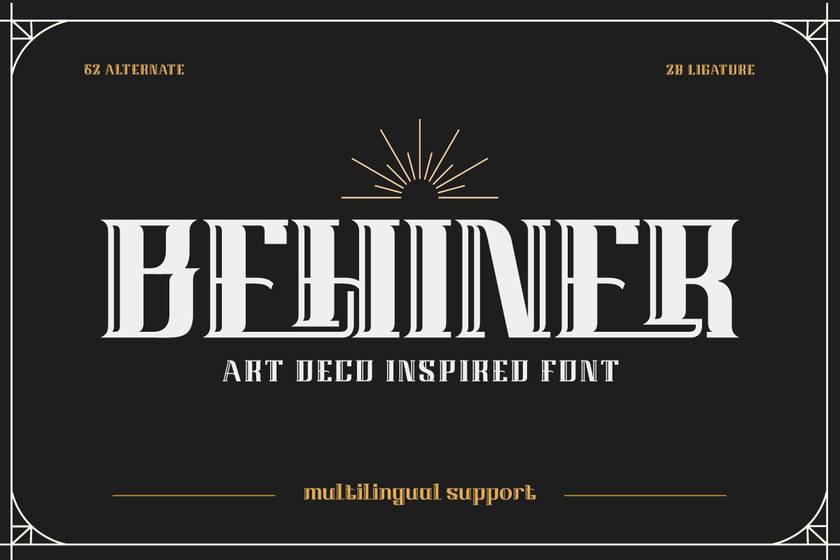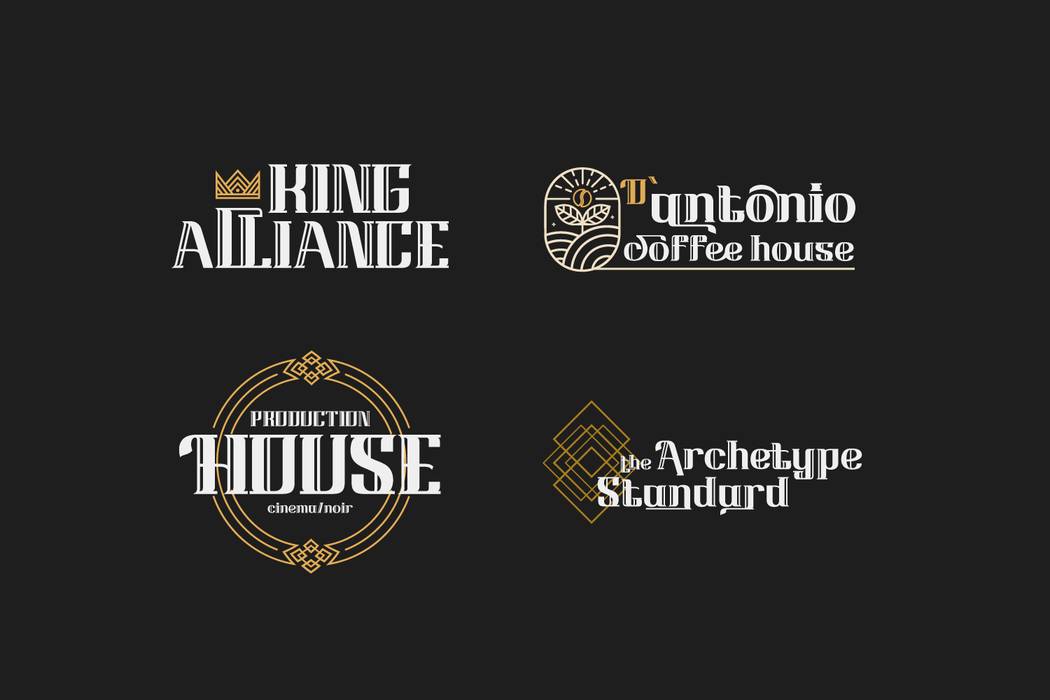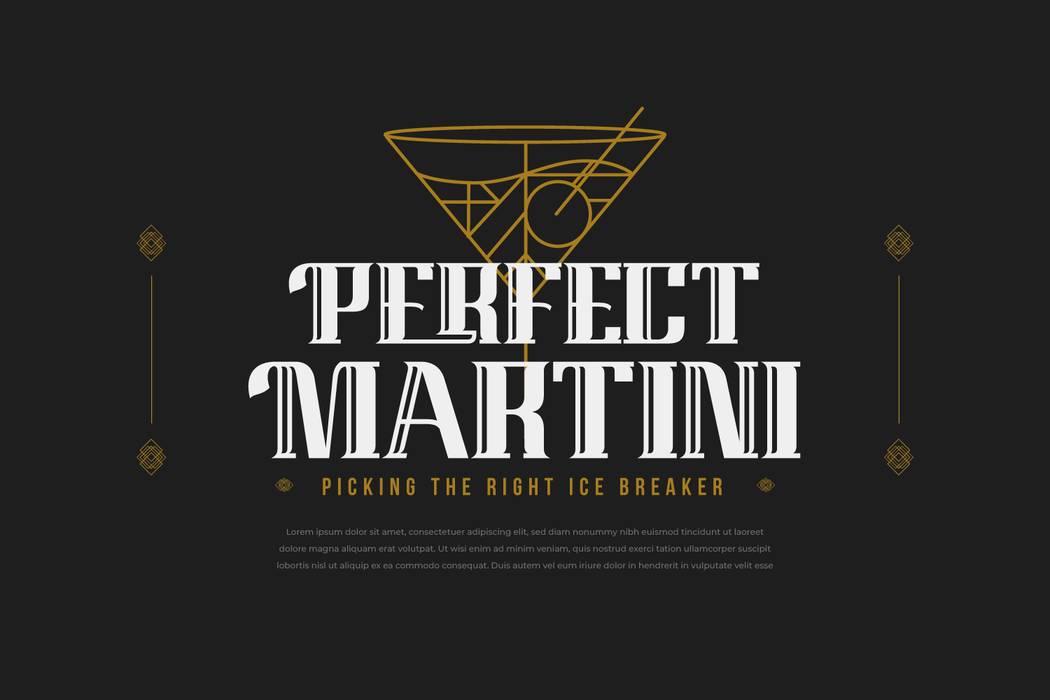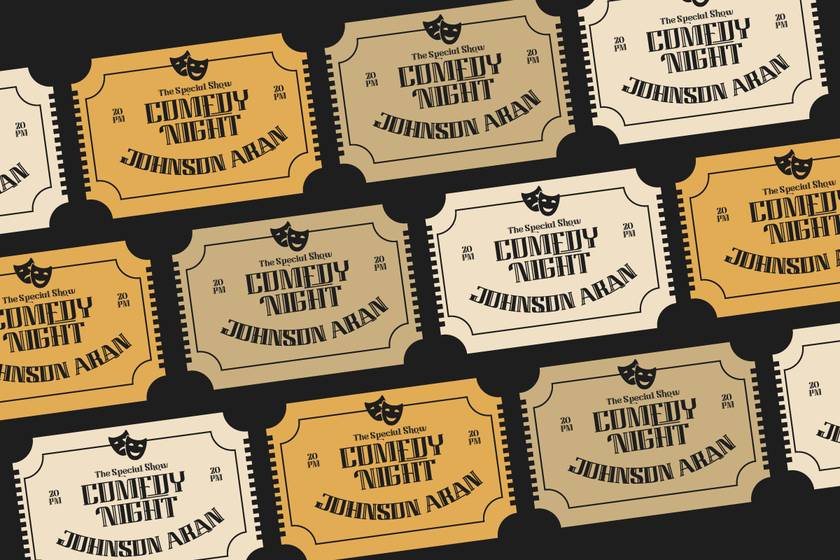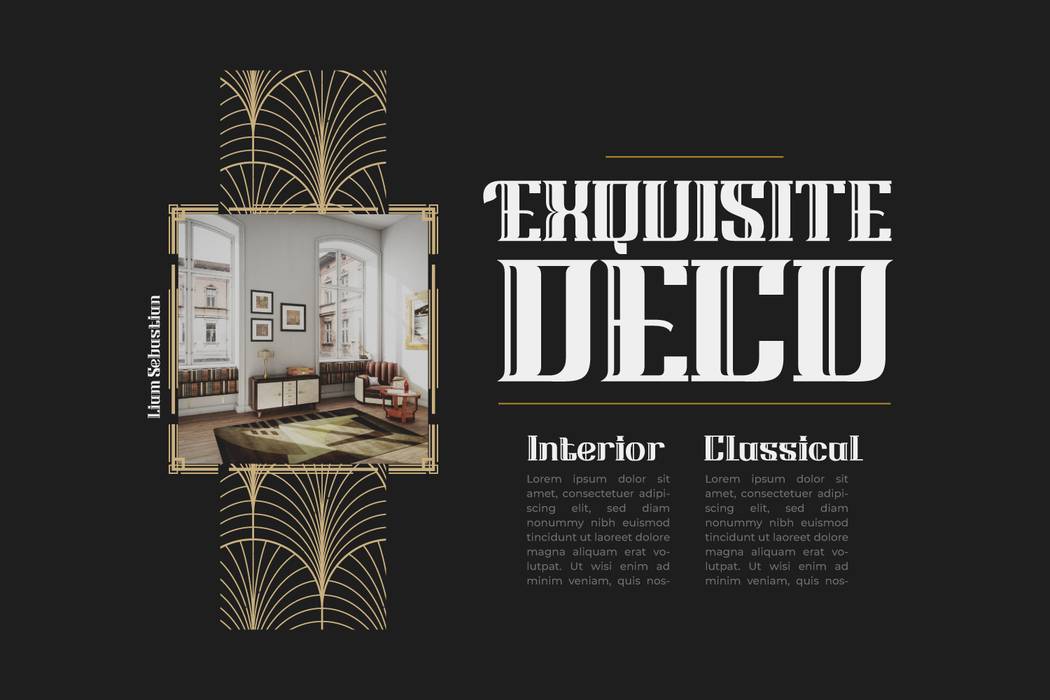
Behiner Font is a bold, condensed serif typeface with a distinctive vintage flair and high contrast between thick and thin strokes. Its sharp, bracketed serifs and unique letterforms create an elegant yet strong personality, making it ideal for striking headlines, logos, and fashion or luxury branding that seek a dramatic and refined look. This font works especially well in display settings where its detailed design can truly stand out.
Behiner Font
About Behiner Font